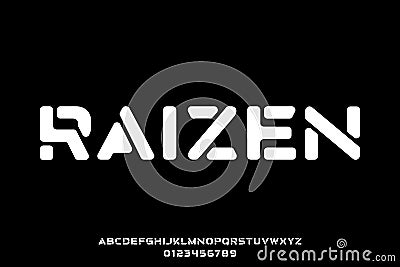
Modern Abstract Typeface Display Font Vector With Soft Corner Design Illustration
Modern abstract typeface display font vector with soft corner design illustration. Unique font vector